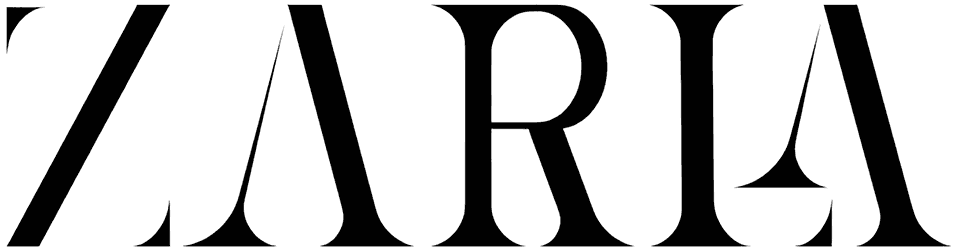
Zarla Font
We advise all graphic designers to always have a remarkable luxury serif font like Zarla as a plan A for designing high-end editorial projects like branding, invitations, web pages, product packaging, or presentations. Since this all-caps font carries a feeling of formality, confidence, trustworthiness, and momentum, it can easily make up for the lack of numbers.